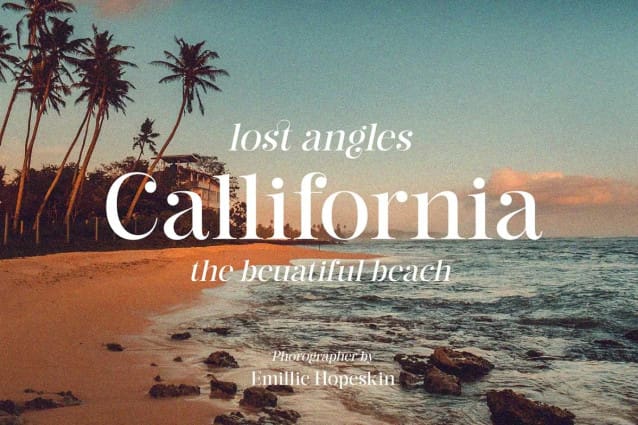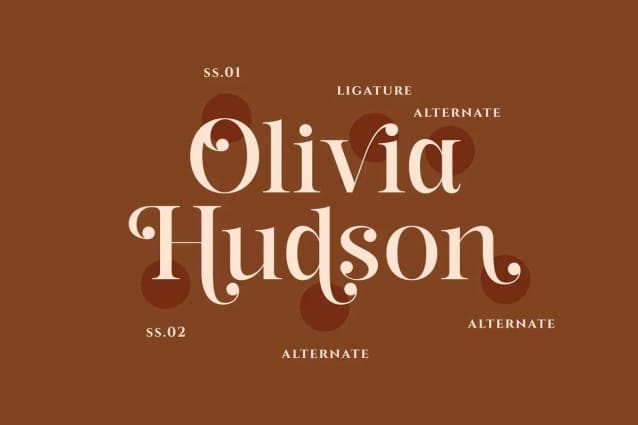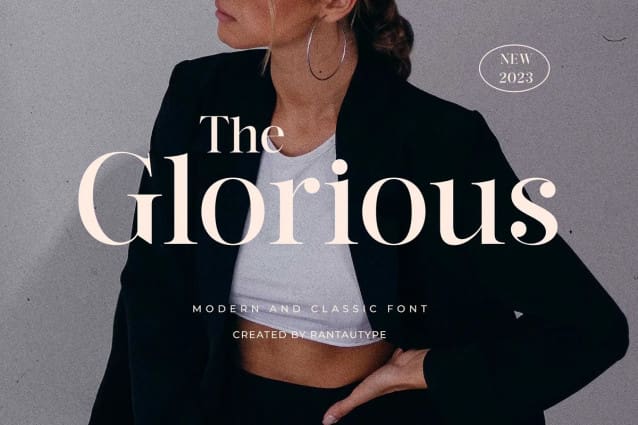
The Glorious Font
The Glorious Font is a beuatiful upper and lower modern or nostalgic serif – with a complementary italic version. The alternate can make to classic or stay on modern. it’s to good to make variant on your work. I’ve also love combination the reguler and italic make cool and nostalgic.
Let’s make nostalgic with TheGlorious